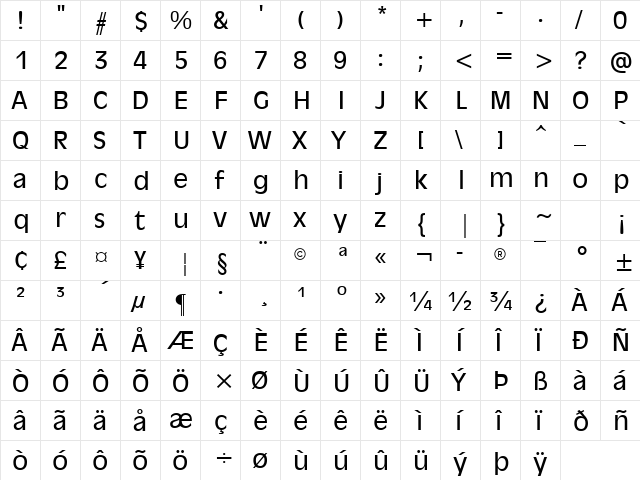
Pistachio Regular
Design Context for Pistachio Typeface
Pistachio offers clean, dependable letterforms without strong stylistic allegiance, making it a practical choice for designers who need flexibility.
Pro Tip: Use Pistachio in both headline and body roles to test its range before committing to a single application.